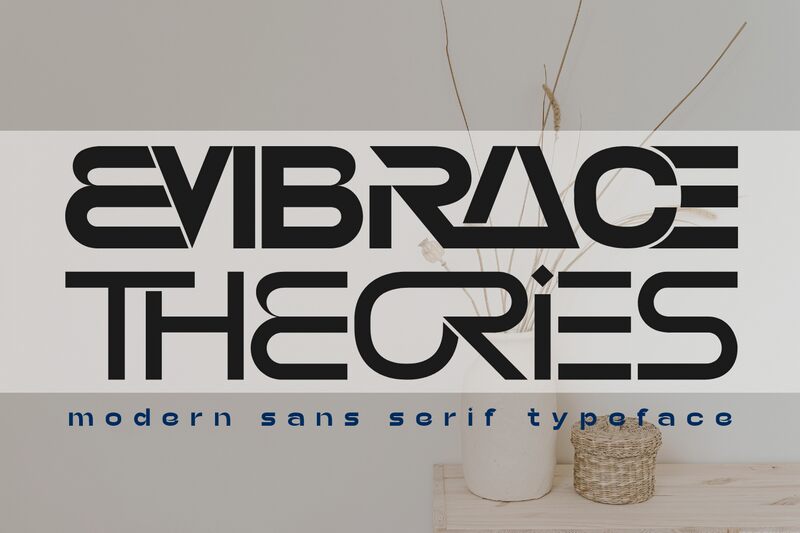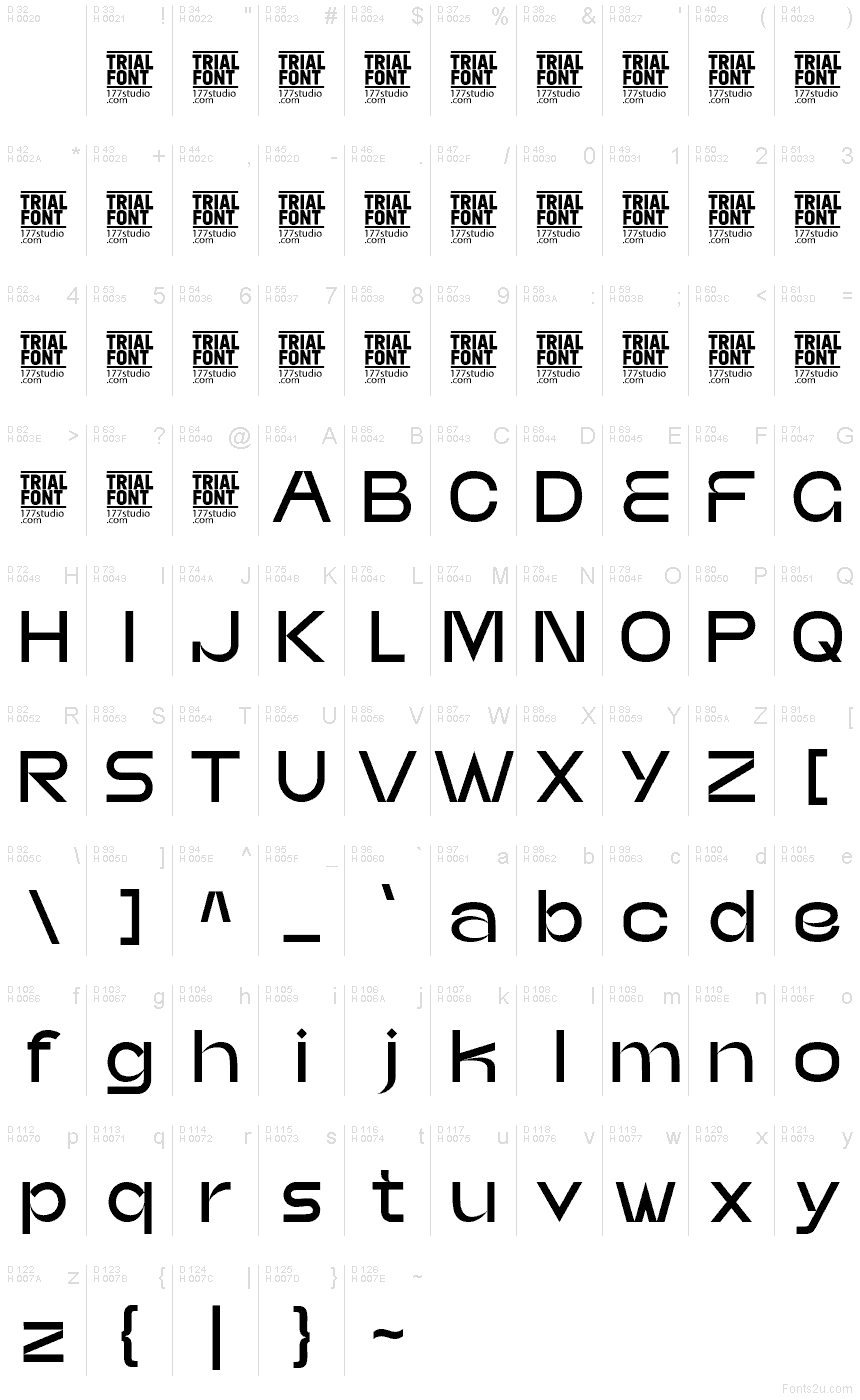
EMBRACE THEORIES DEMO Regular
Embrace Theories font by 177Studio is a free futuristic sans serif typeface with a striking mirrored rhythm. Tall, ultra-narrow letters stretch upward like neon pylons, while the repeated horizontal cuts and looping curves create a sleek, sci‑fi circuitry feel. The clean, monoline strokes keep it crisp and readable, even as the stylized forms give your text a bold, conceptual edge.
Using Embrace Theories, short words lock together into a tight, graphic pattern that grabs attention in tech branding, music covers, experimental posters, gaming titles, UI headers, and event flyers. This free font shines in larger sizes where its repeating curves and bars can really breathe; pair it with a plain, open sans for body copy to balance its dense, futuristic texture.